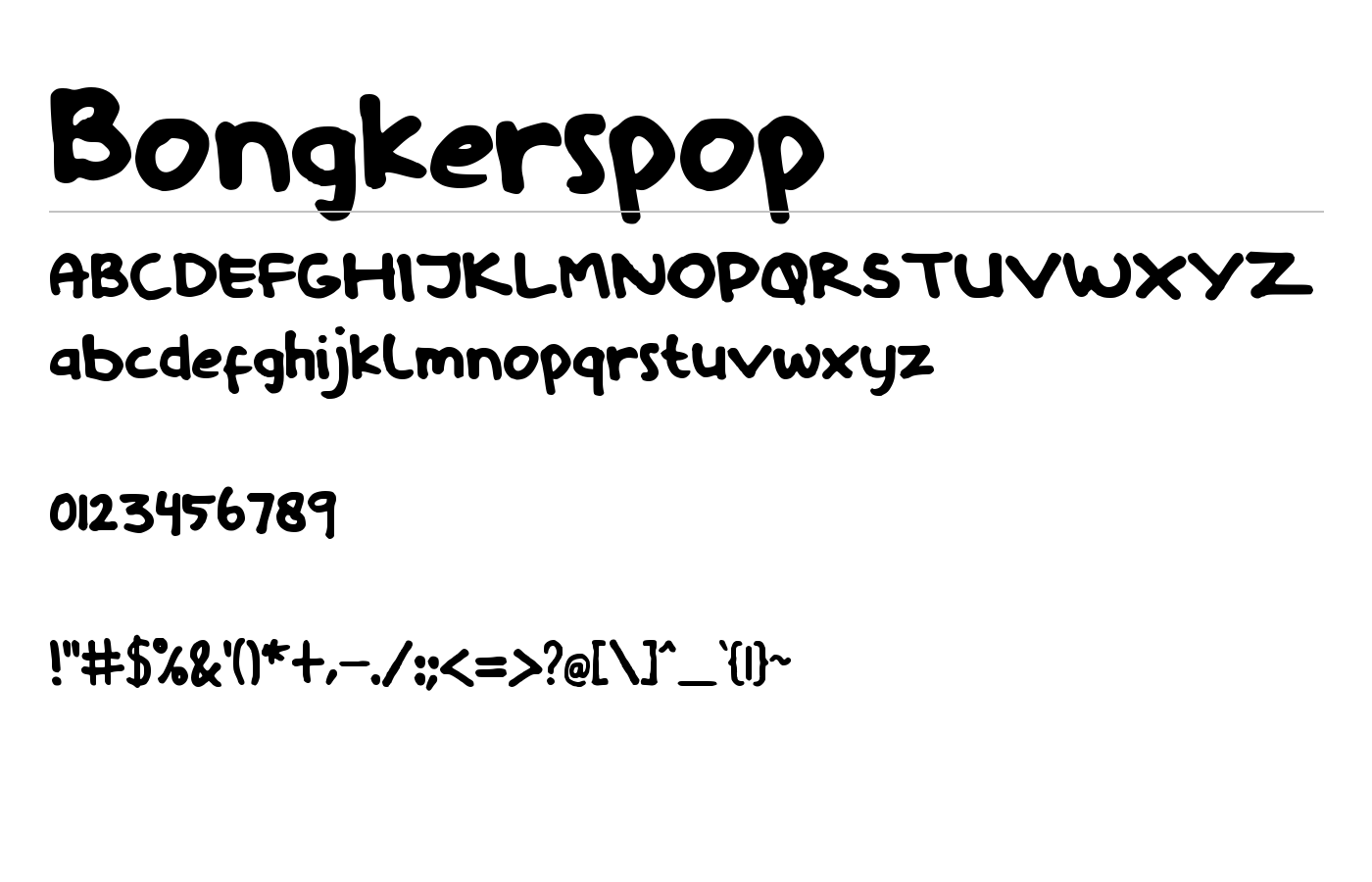
Bongkerspop is a playful, casual sans serif font with a hand-drawn feel, featuring rounded, uneven strokes and a friendly, informal personality. Its lively letterforms and organic shapes make it ideal for creative projects, children’s content, or any design seeking a fun, approachable vibe. This font works well in headlines, logos, and packaging where a quirky, relaxed style is desired.
Bongkerspop Font
About Bongkerspop Font
| Designer | Johan Wibisono |